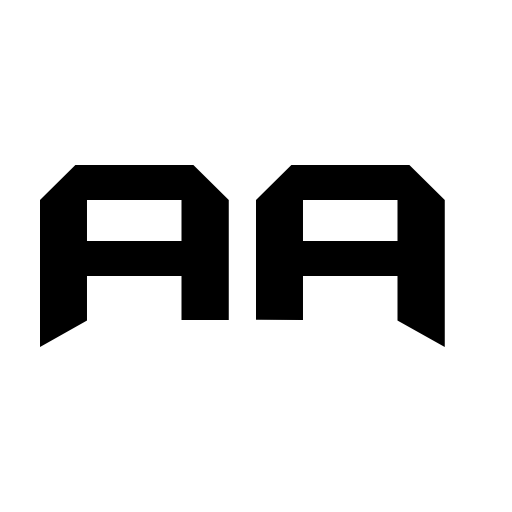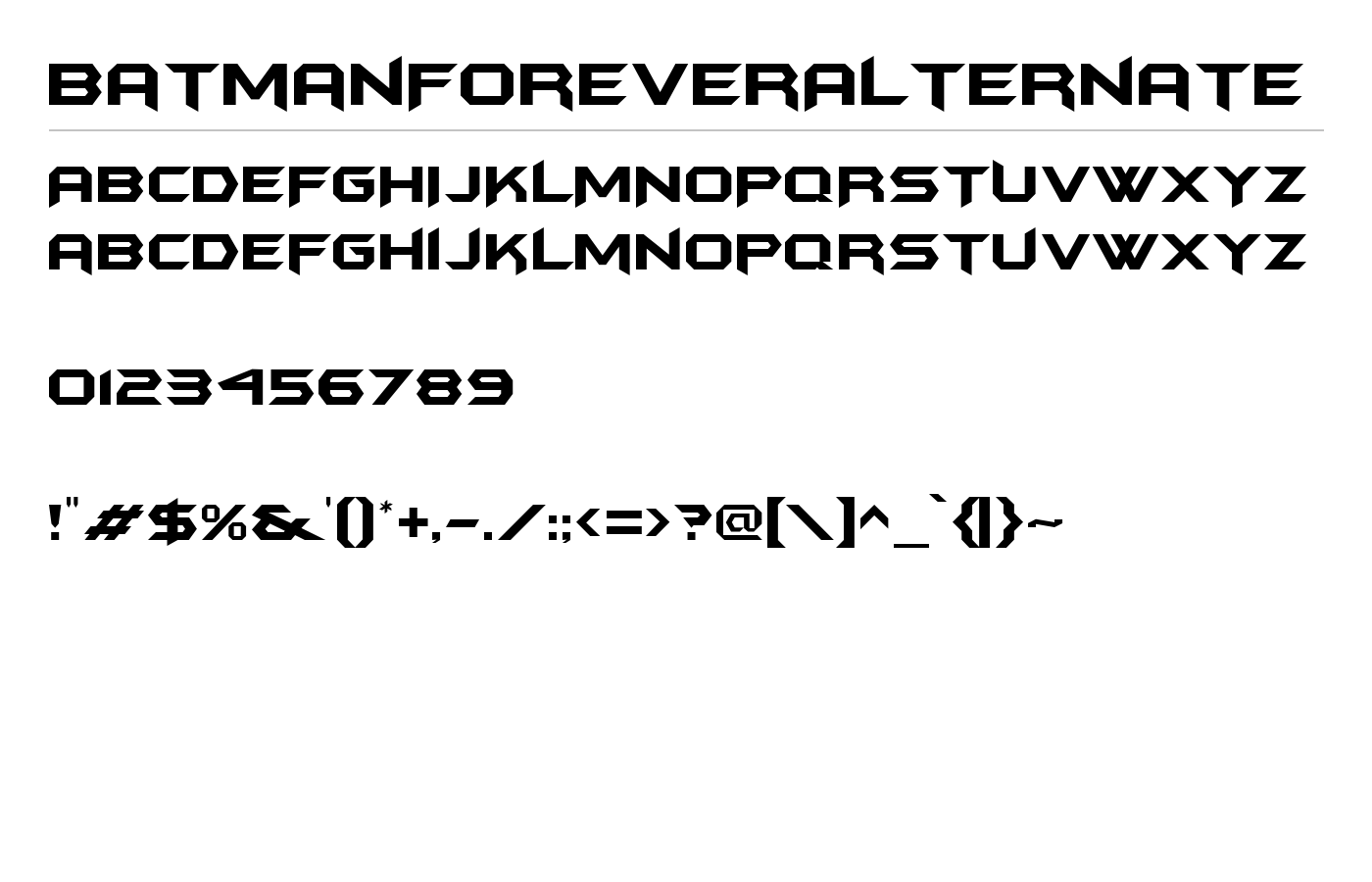
BatmanForeverAlternate is a bold, geometric sans serif font with a distinctive angular style that gives it a futuristic and dynamic feel. Its sharp edges, consistent stroke weight, and tight spacing create a strong presence perfect for logos, headlines, or any design needing a bold, tech-inspired impact. This font works well in entertainment, gaming, and sci-fi branding where a modern, edgy vibe is desired.
BatmanForeverAlternate Font